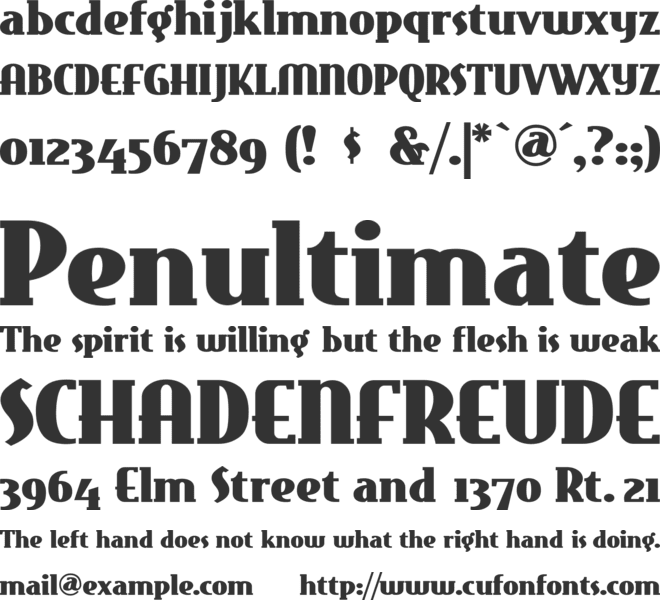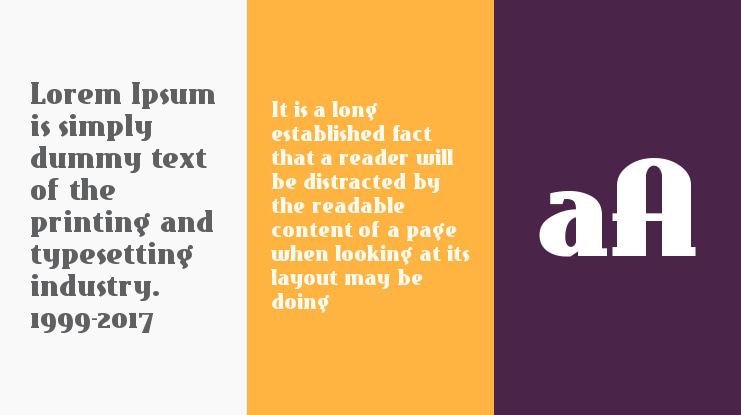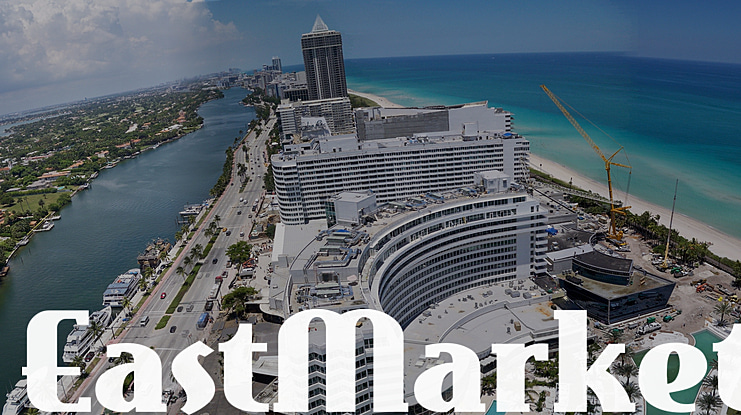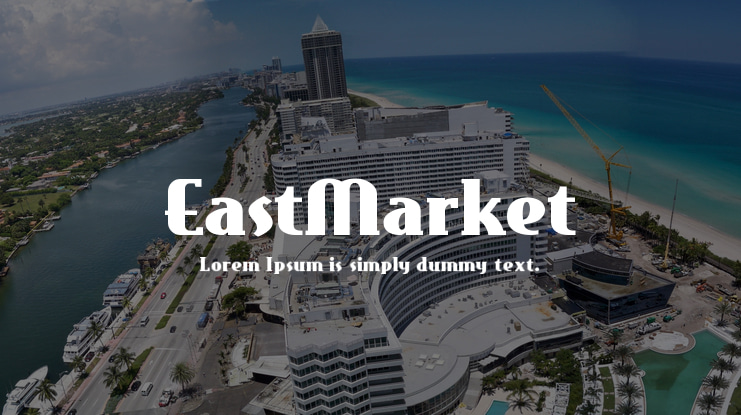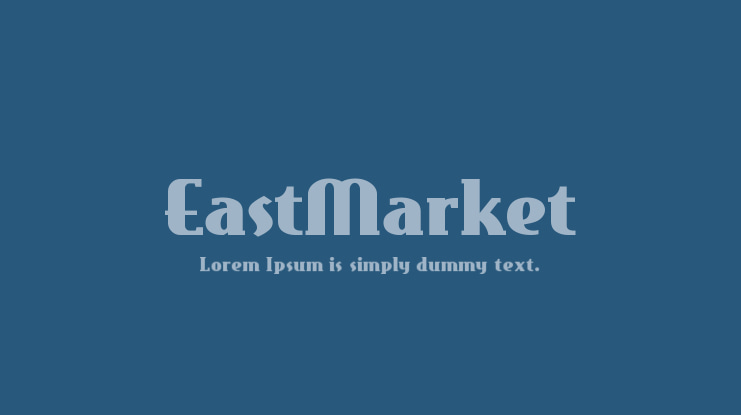
EastMarket Font
Greg Thompson’s classic font Bodega has been a favorite of mine ever since it came on the scene in the early 90s, both in its sans and serif versions. Here’s a different take on the OldStyle version, fattened up and ready to add its quirky charm to your next project.